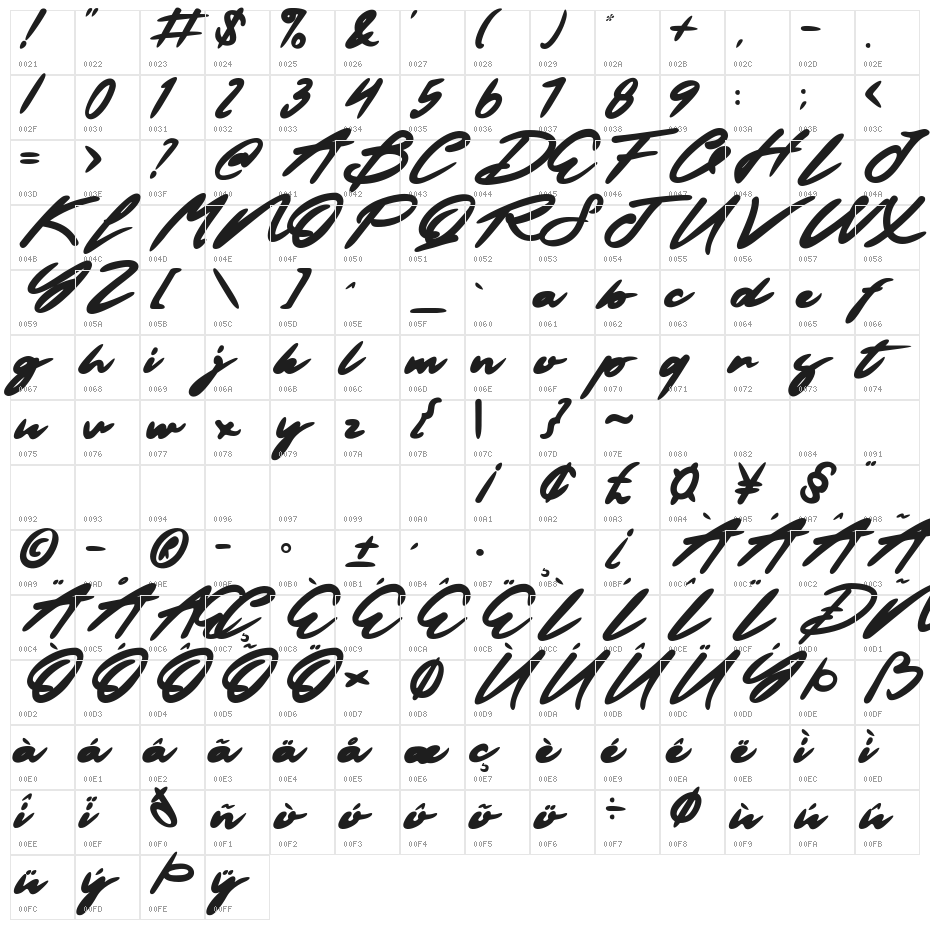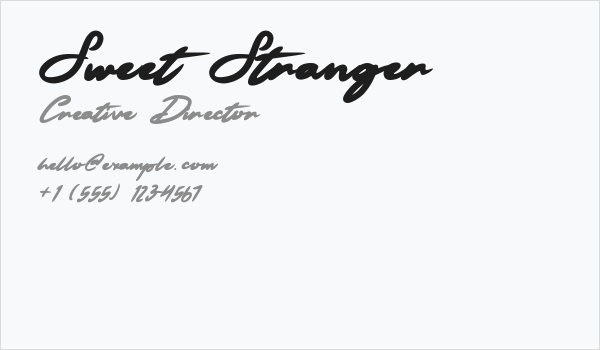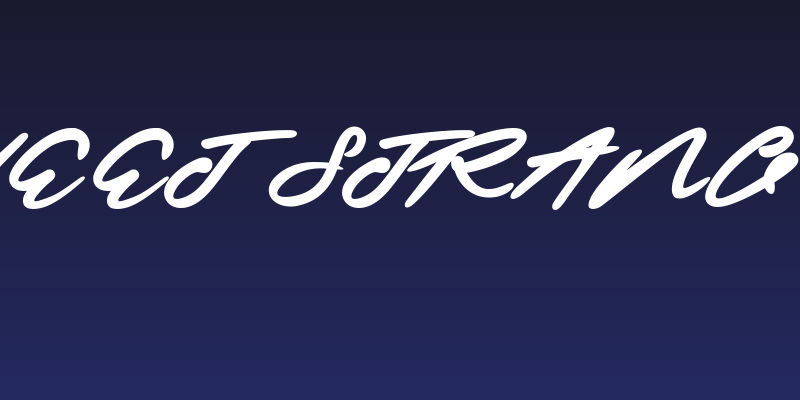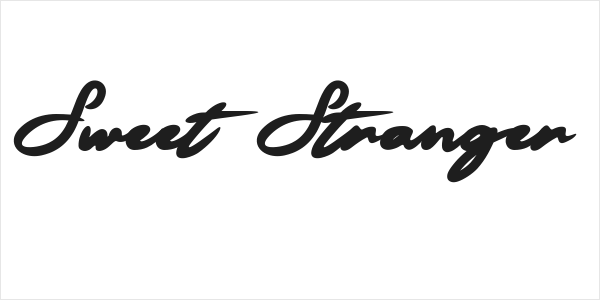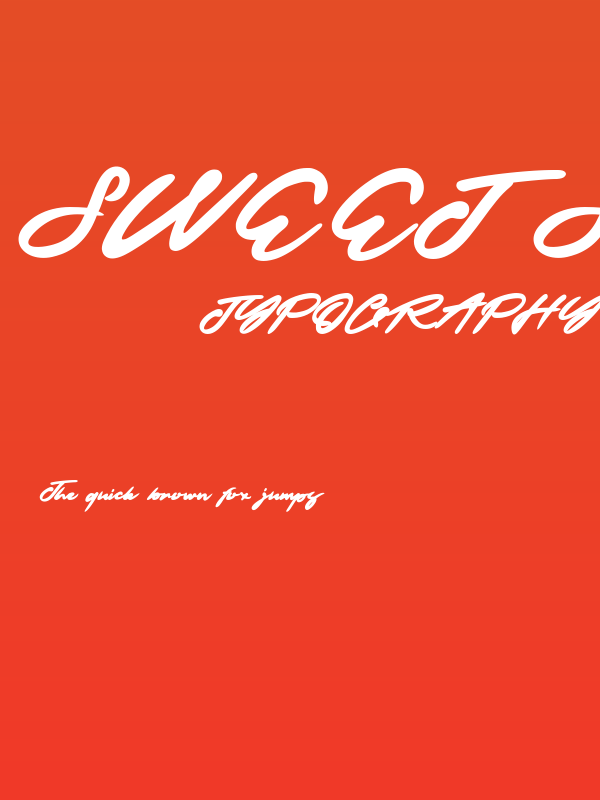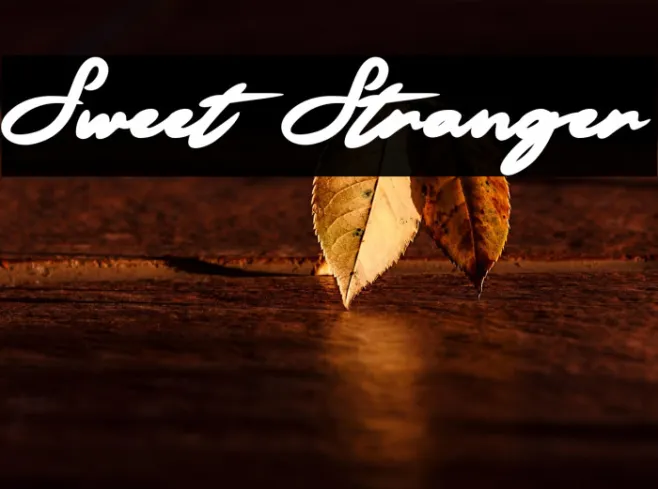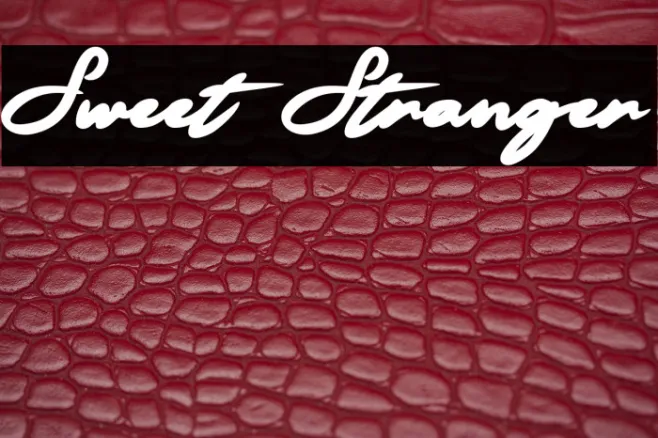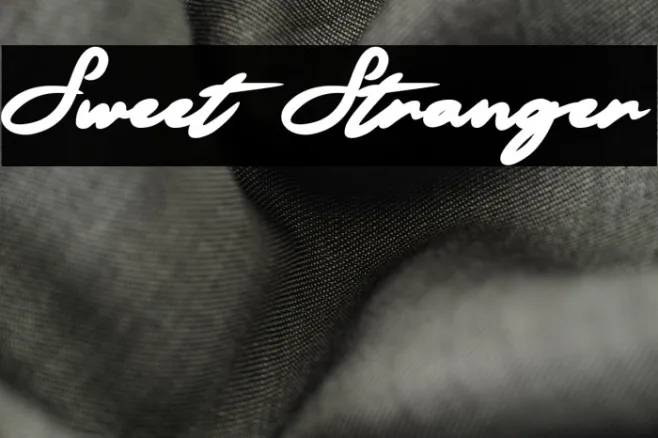
Sweet Stranger Font
Sweet Stranger Description
This font exhibits a bold, cursive style with a flowing, handwritten appearance. The characters are connected, creating a seamless and elegant look. The strokes are thick and consistent, providing a strong visual impact. The uppercase letters maintain a uniform height, while the lowercase letters have a slight slant, enhancing the script-like quality. Numbers and special characters are designed to match the overall aesthetic, ensuring cohesion across all elements. The font's dynamic and expressive nature makes it suitable for creative and artistic projects.